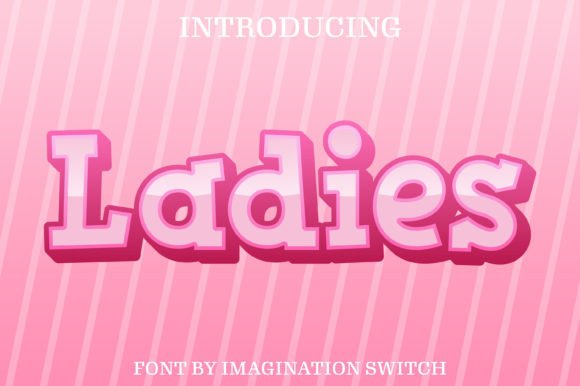
Immerse yourself in a world of visual splendor with the Color Font: Ladies Font - a captivating typographic creation that breathes life into your designs with vibrant hues and intricate details. This font family, known for its Best Fonts For Flat Design, is the brainchild of Imagination Switch, renowned for their artistic brilliance.
Embark on a creative odyssey with the Color Font: Ladies Font, a font that defies convention and captivates the senses. Its mesmerizing color palette and meticulously crafted characters transform ordinary text into visual masterpieces. Experience the symphony of colors dance across your screen, adding depth and dimension to your designs.
With its complete repertoire of uppercase, lowercase, and numerical characters, this font offers unparalleled versatility, adapting seamlessly to a myriad of projects. Unleash your creativity in print designs, web designs, promotional materials, and beyond. The Color Font: Ladies Font empowers you to articulate your message with clarity and visual impact.
Exceptional legibility meets captivating aesthetics in the Color Font: Ladies Font. Each character is meticulously designed to ensure crystal-clear readability, even at smaller font sizes. Its visually striking presentation amplifies your message, leaving an indelible impression on your audience.